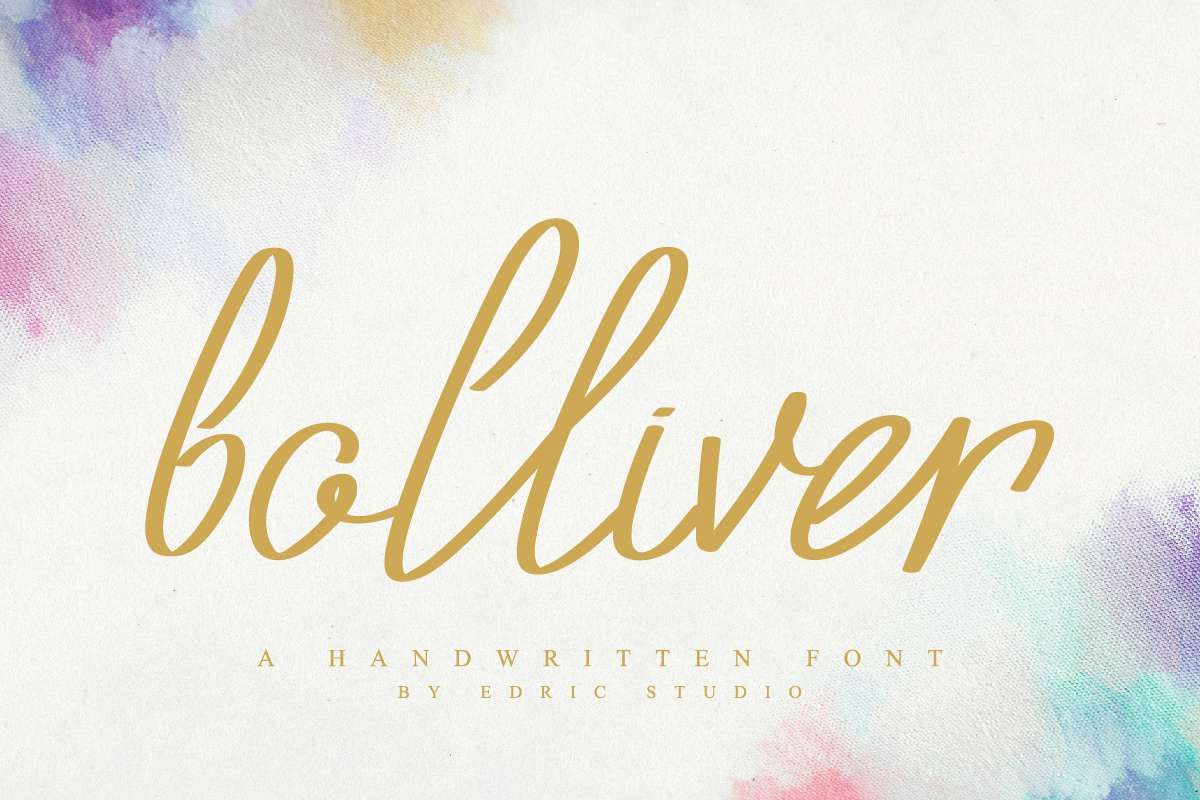
Bolliver
What’s up Everybody?It is us again : EDRIC Studio, Please welcome!The newest font from our lovely artist. A handwriting font : Bolliver !This is a handwriting font, handcrafted from our Studio here in, Indonesia. The artists/designers of this beautiful tyeface is Fahri F and Sarah Suci.Bolliver Handwriting Font is an exclusive handwriting script typeface with manual pen style. This font has a stunning characters set, perfectly managed with well spaced and kerning. The theme style of this font will elegant,  vintage, stylish and sophisticated style. You wont find any where else, the font like Bolliver Handwriting Font.Bolliver Handwriting Font will be great for any projects including : branding, logo, stationery, business card, signage, flyer, brochure etc. Almost all industries will be match for this typeface: wedding, events, real estate, architect, law firm, florist, gardening, makeup artist, travel, hotel, musician etcHere’s what you’ll get on the zip pack :